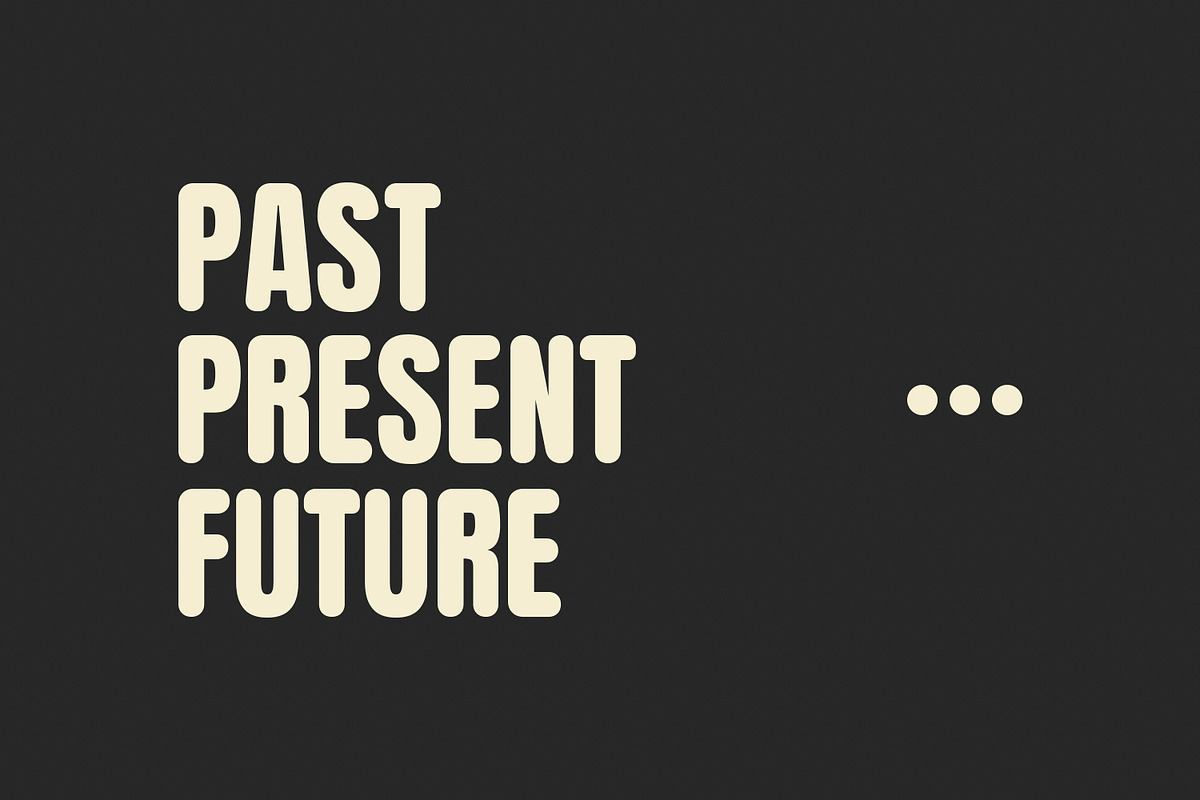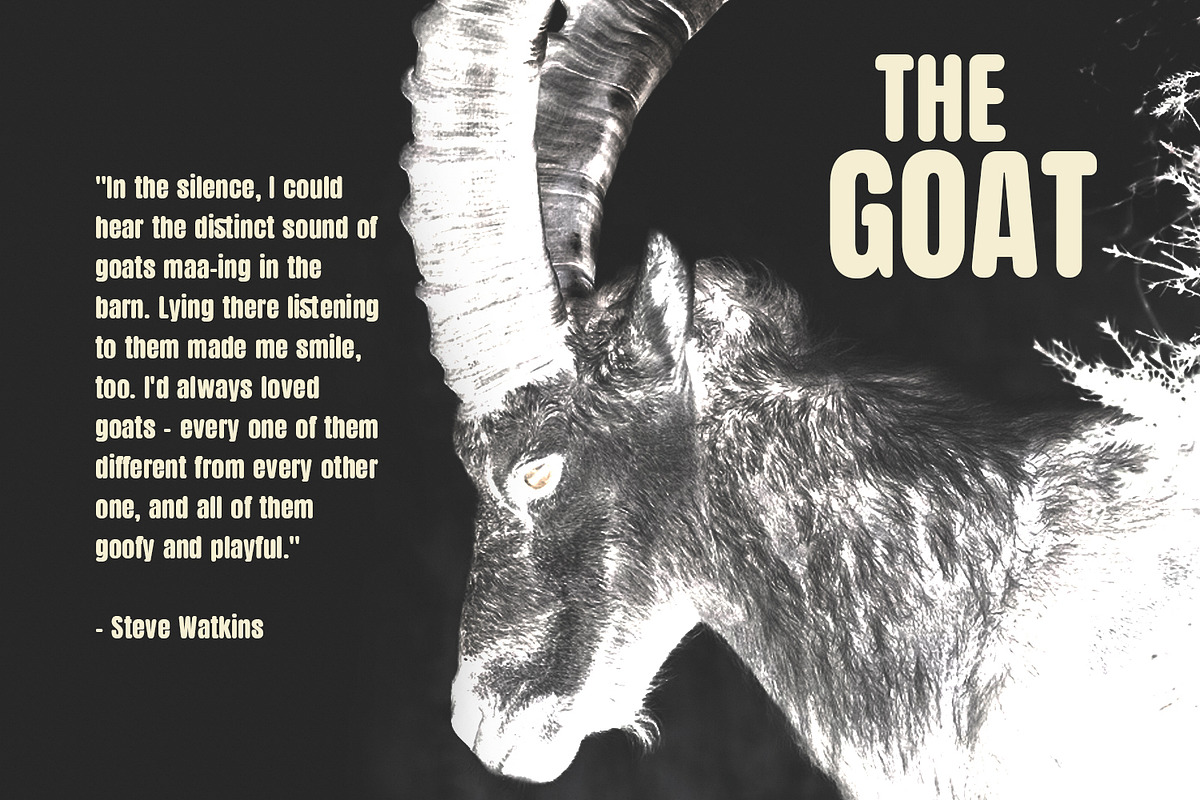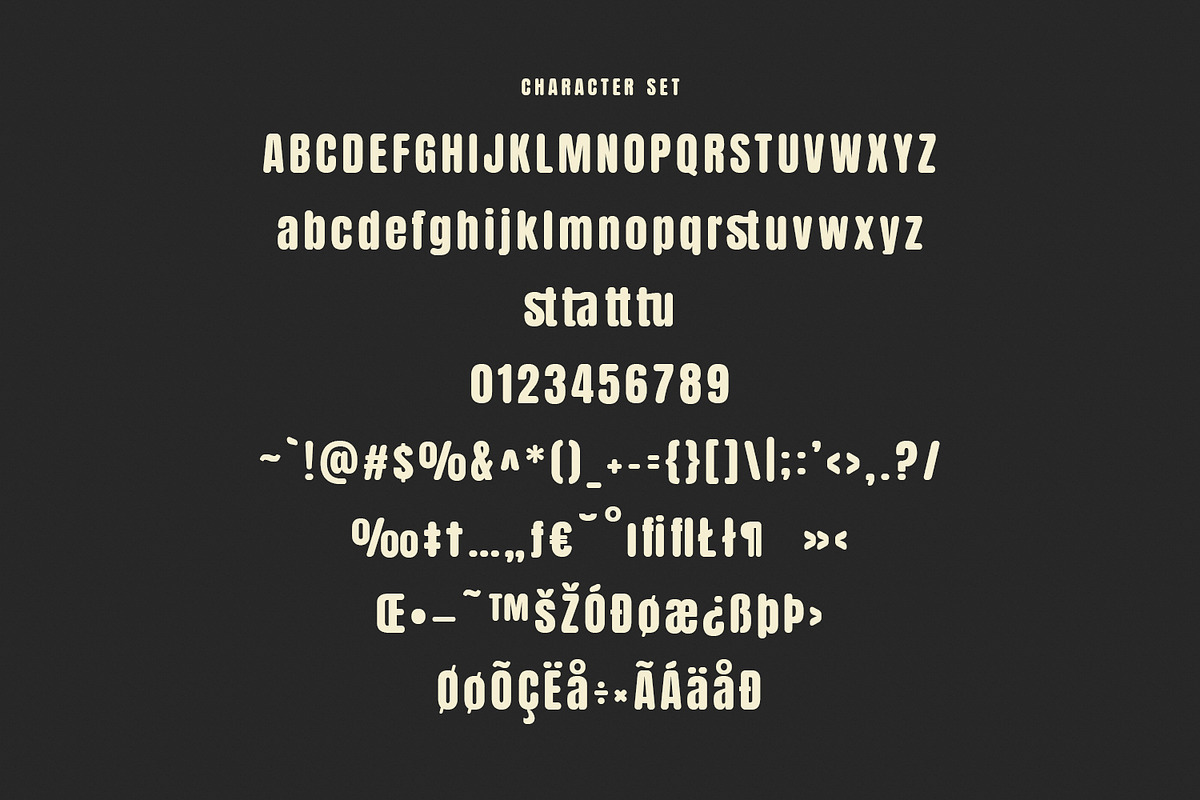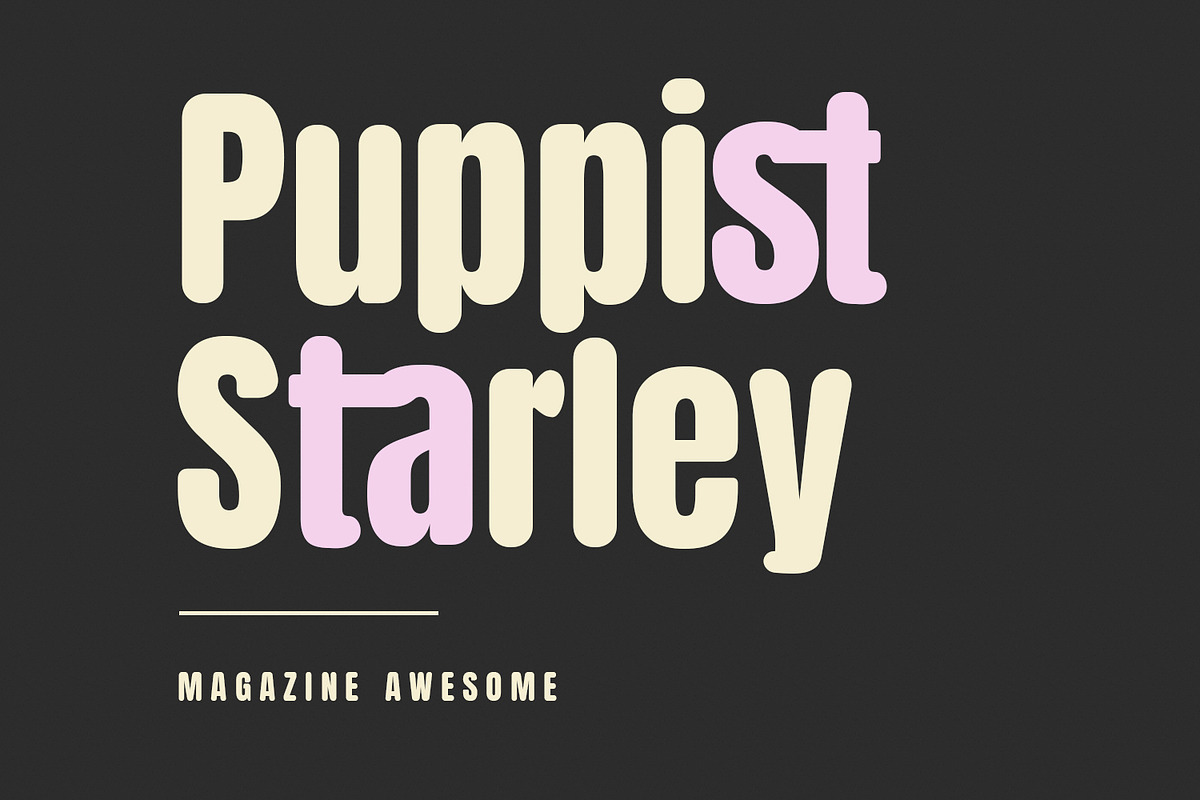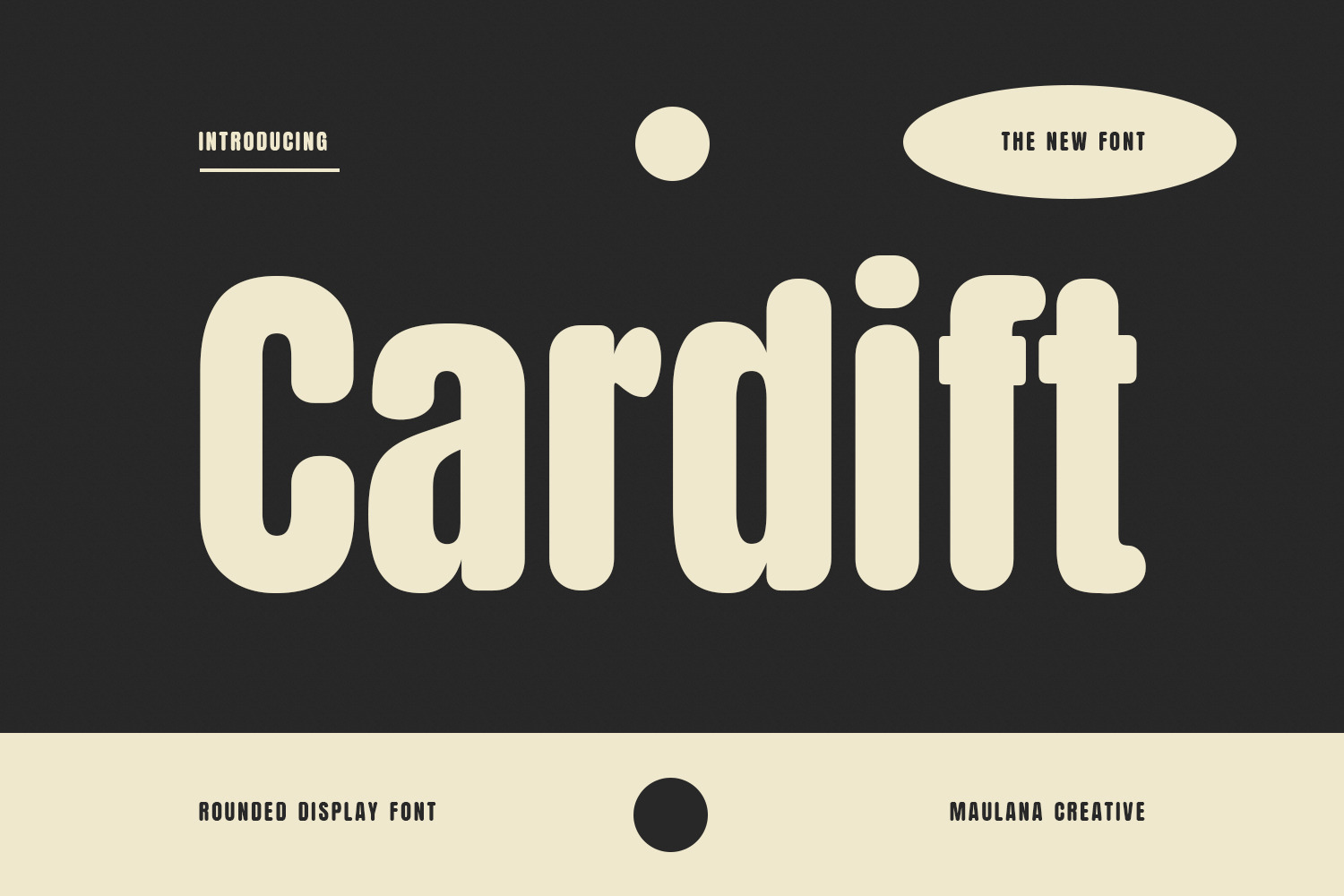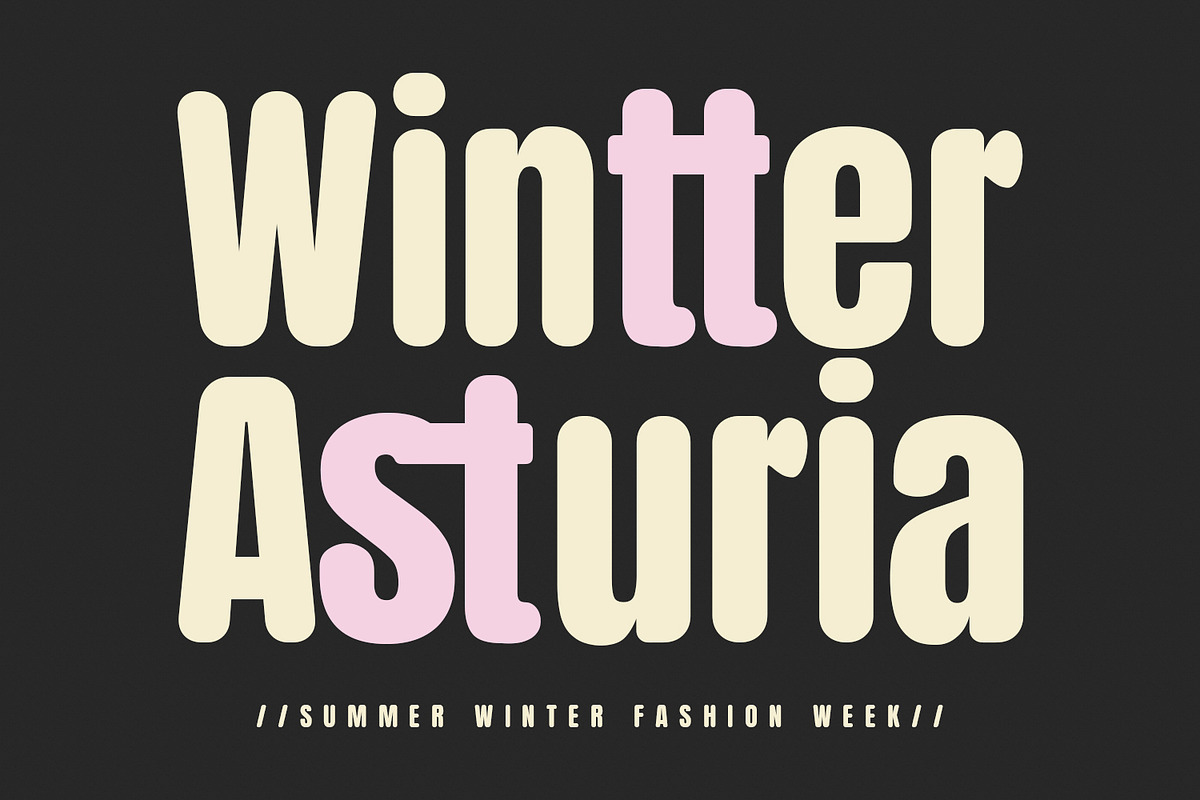
Cardift Rounded Display Font
Cardift is a sans display font. With bold tall and rounded stroke, fun character with a ligatures. To give you an extra creative work. Cardift font support multilingual language. This font is good for logo design, Social media, Movie Titles, Books Titles, a short text even a long text letter and good for your secondary text font with sans or serif. Make a stunning work with Cardift font.